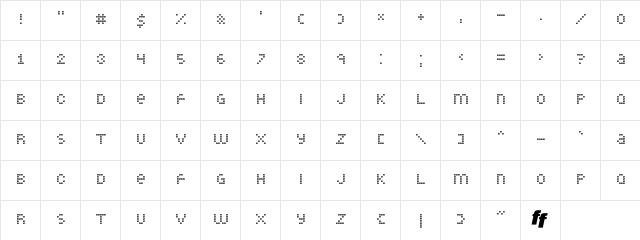
LittleDotties Regular
Design Context for LittleDotties Typeface
LittleDotties is rooted in pixel-grid construction, making it a natural fit for game UI, retro computing aesthetics, and digital nostalgia projects.
A natural choice for retro game titles, chiptune music branding, 8-bit UI, and digital nostalgia projects.
Pro Tip: Pair LittleDotties with flat colour palettes and simple geometric UI elements to reinforce its digital aesthetic.